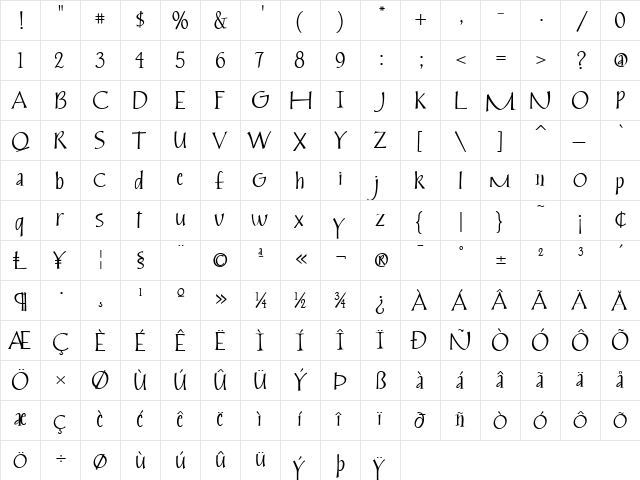
Inkster Regular
| Foundry | TYPADELIC FONTS |
| Designer | Ronna Penner |
Design Context for Inkster Typeface
Inkster is a composed and adaptable typeface that performs quietly and consistently across a wide range of design contexts.